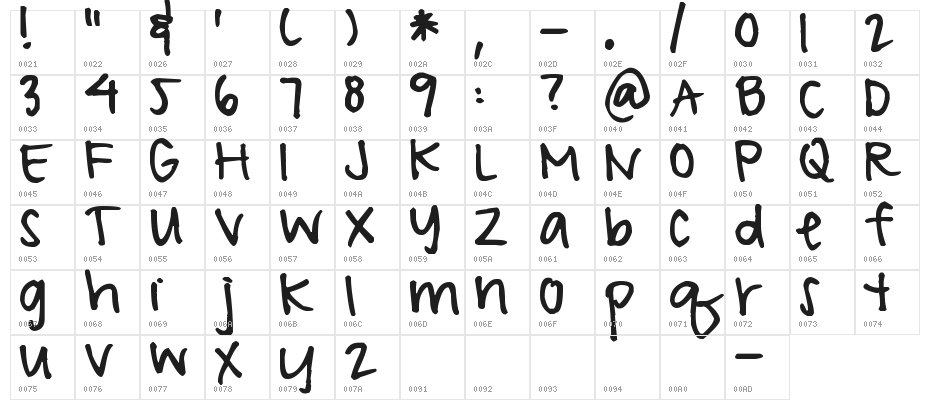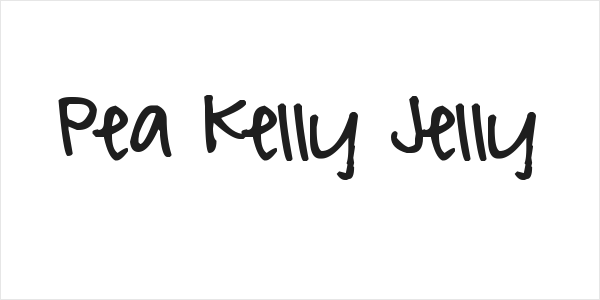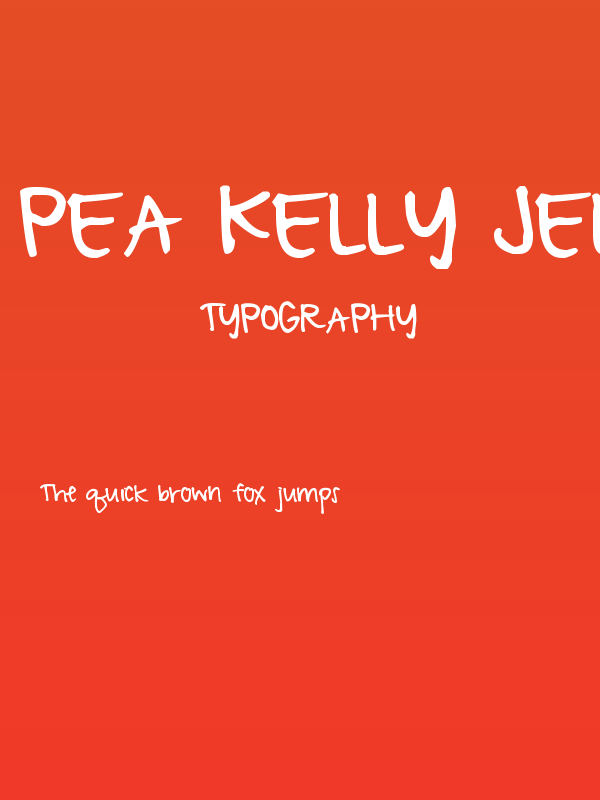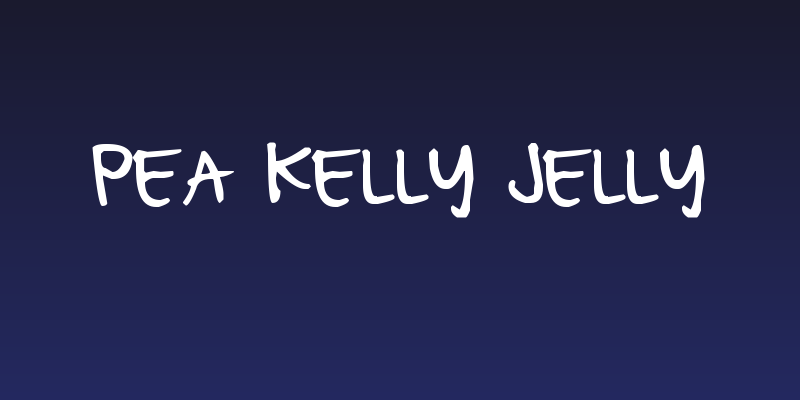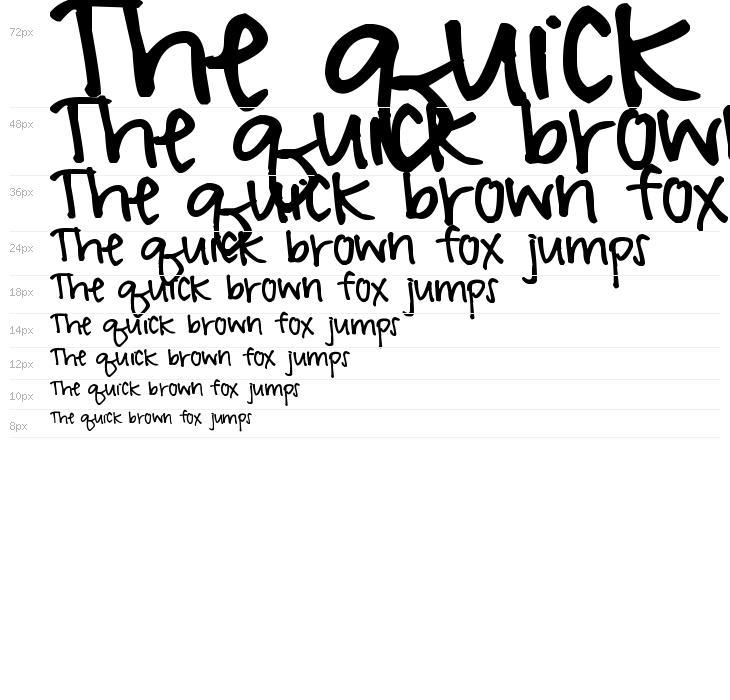
Pea Kelly Jelly Font
Pea Kelly Jelly Description
This font features a playful and casual handwritten style, characterized by its bold and slightly irregular strokes. The letters have a lively and energetic appearance, with a natural flow that mimics authentic handwriting. The uppercase and lowercase letters are well-balanced, maintaining a consistent style throughout. Numbers and special characters are crafted with the same playful touch, adding to the font's overall charm. The font's informal and friendly nature makes it suitable for projects that require a personal and approachable feel.
| Use Case | Headlines, Informal Text, Creative Projects |
| Proposed Projects | Ideal for greeting cards, children's books, personal blogs, and informal branding projects. |